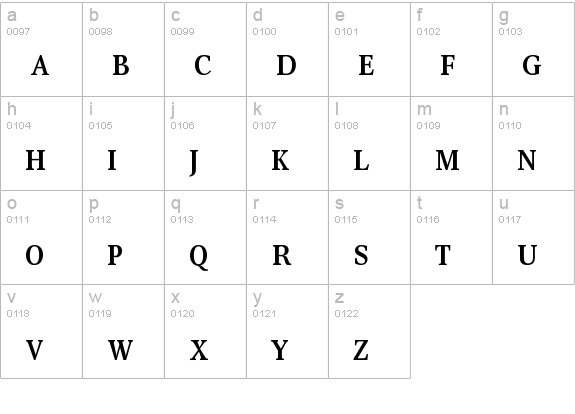
Concorde Nova (R) Expert Regular is the standard, neutral variant in the Concorde typeface family \xE2\x80\x94 well suited to general body text, paragraphs, and standard typographic work.
Concorde Nova (R) Expert Regular font is a timeless and elegant typeface that exudes sophistication and professionalism. Its sleek and clean design makes it ideal for a wide range of projects, from business documents to creative designs. This versatile font is perfect for adding a touch of class to any project. The Concorde Nova (R) Expert Regular font is available for free download at FontsMarket.com, making it easily accessible to anyone looking to elevate their typography game without breaking the bank. With its classic yet modern appeal, this font is sure to make a lasting impression on any audience. Whether you're working on a corporate presentation, branding materials, or a personal project, the Concorde Nova (R) Expert Regular font is a fantastic choice that will help you stand out from the crowd. Download it for free today and add a touch of sophistication to your next design project.